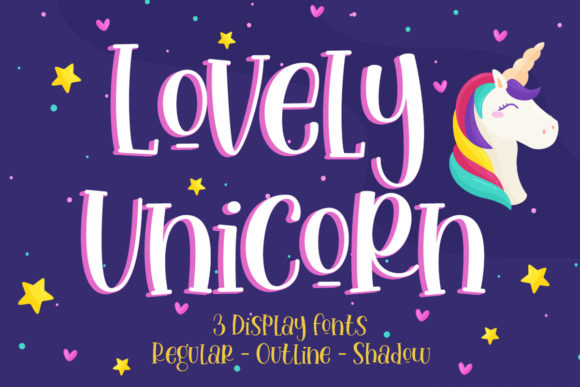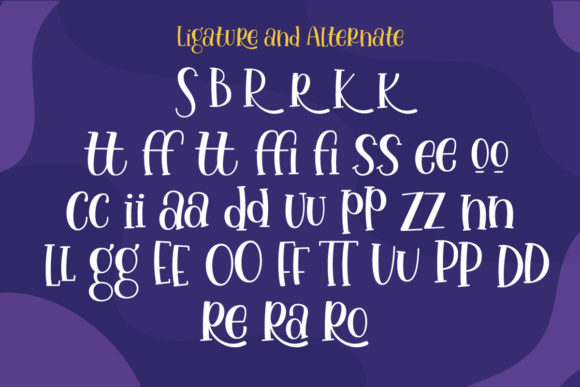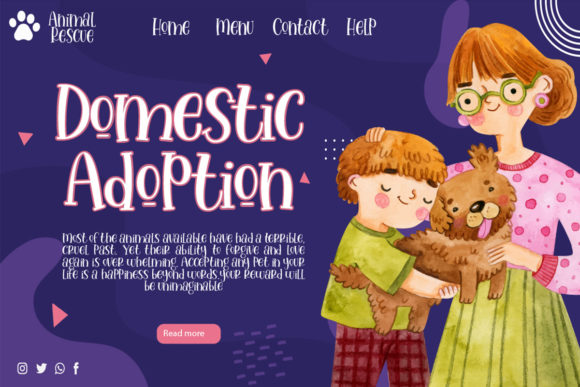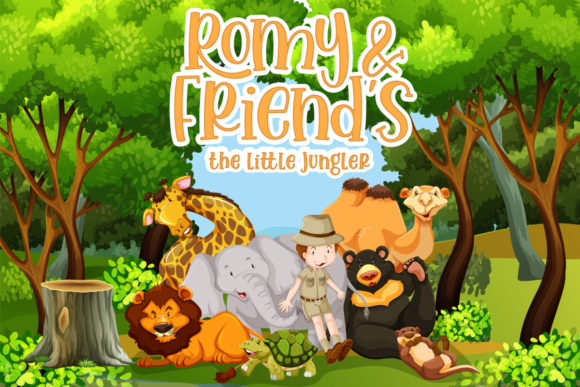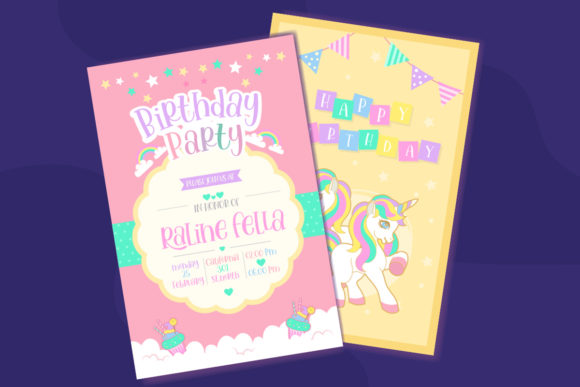
About Lovely Unicorn Font
Lovely Unicorn is a cute and playful handwritten font. With its neat and beautiful arrangement of letters, this typeface will look outstanding in any context.